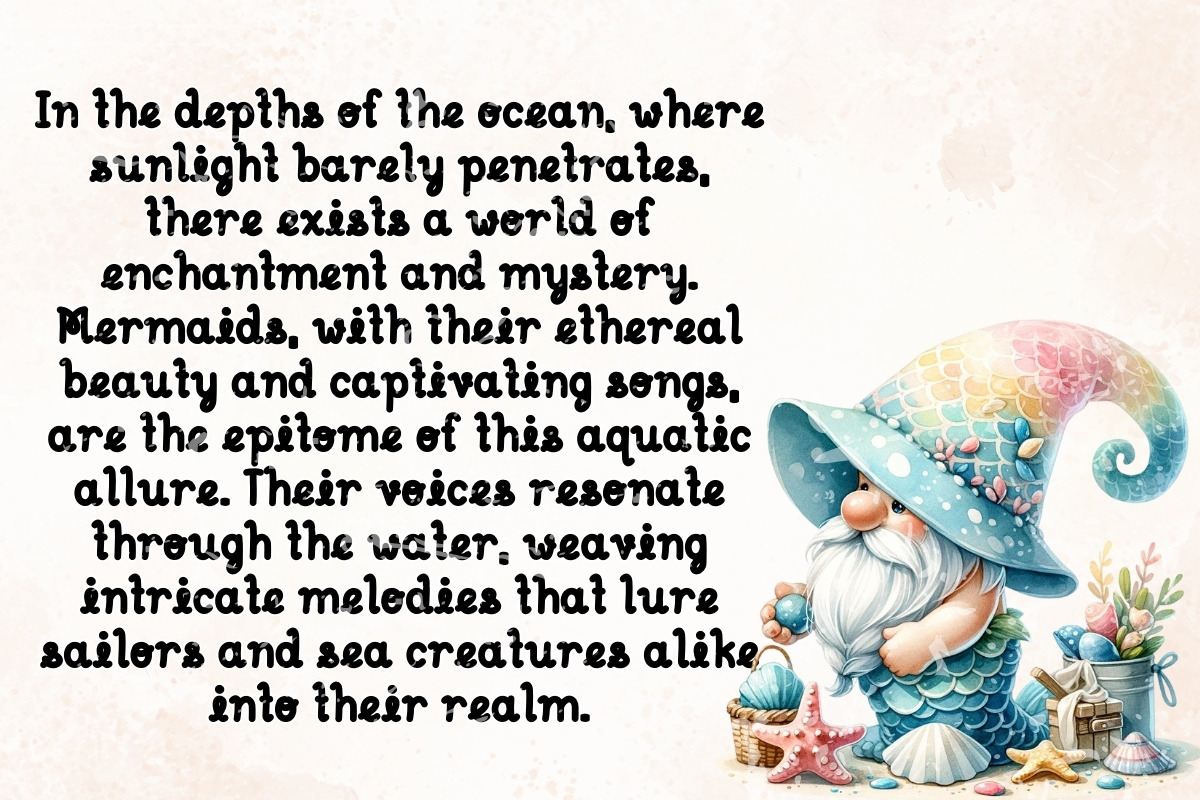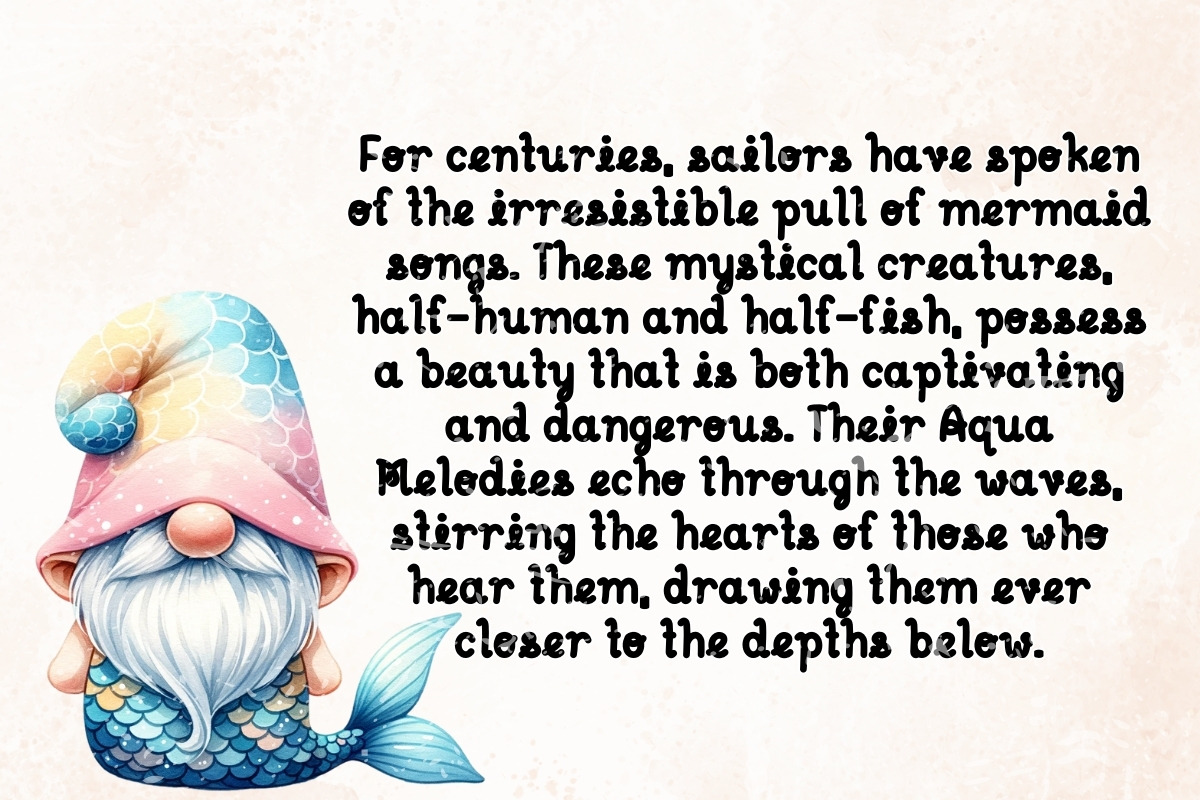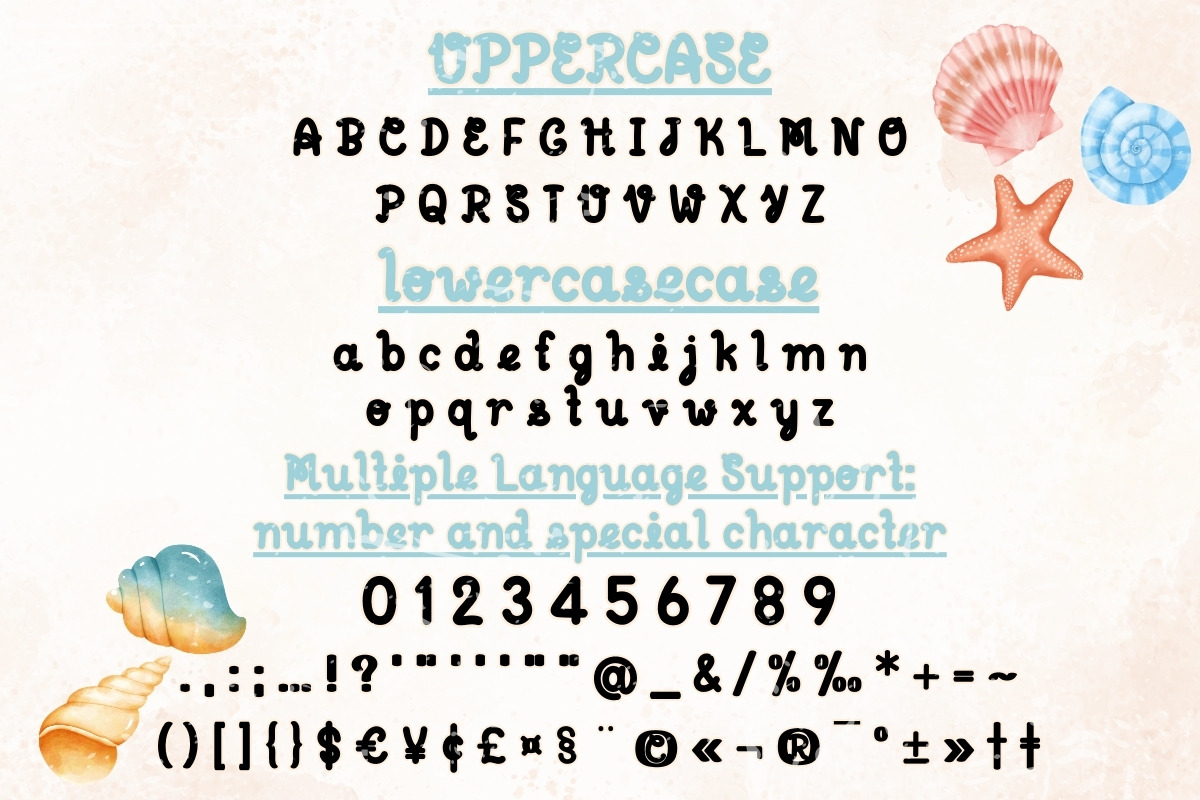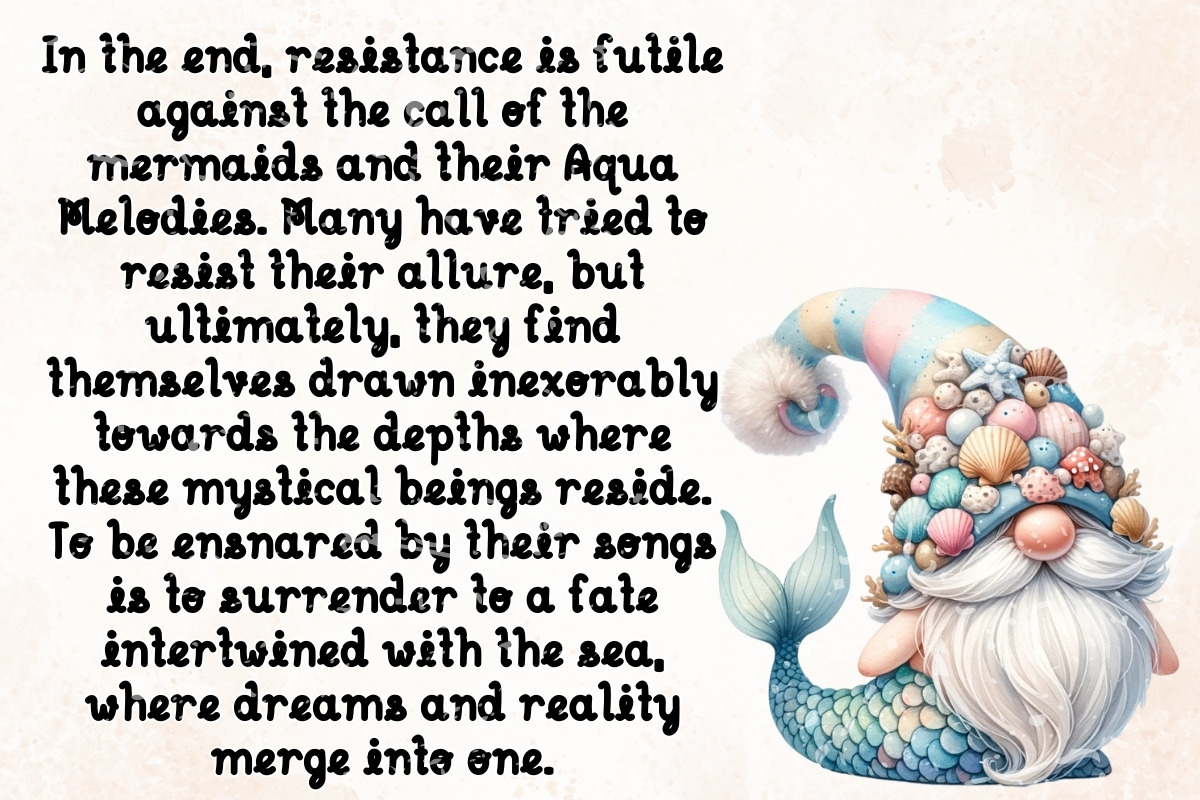
Aqua Melodies - Handwriting
Aqua Melodies is a charming and whimsical handwritten font that exudes elegance and playfulness. With its graceful strokes and delicate curves, this font brings to mind the gentle ripples of water and the enchanting melodies of mermaids. Perfect for adding a touch of magic to invitations, greeting cards, and branding projects, Aqua Melodies is sure to captivate your audience with its beauty and charm.